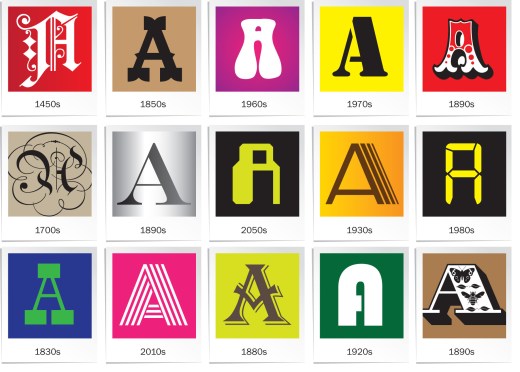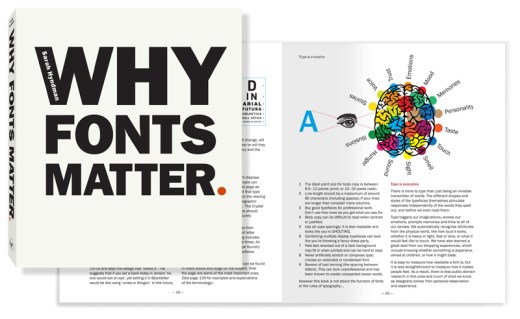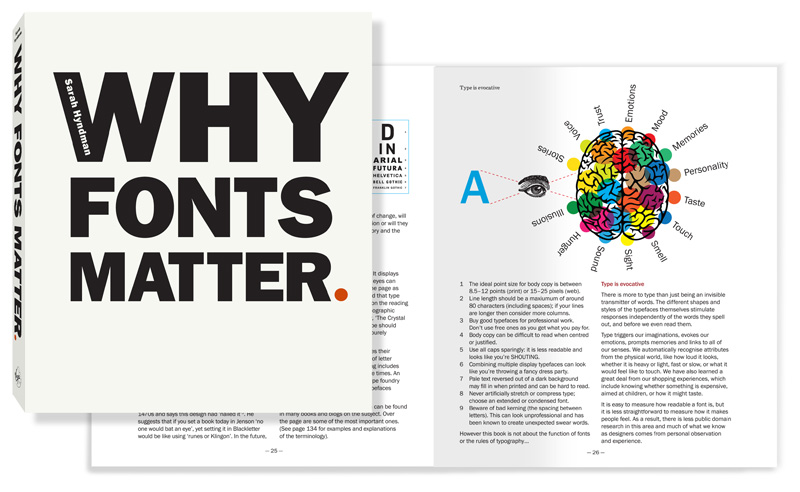
Design student typographic survival kit
Here is some advice for students starting a new term on how fonts can help your studies, from Sarah Hyndman’s book Why Fonts Matter.
1. Use fonts to give your words a personality
Helvetica, Times New Roman and Comic Sans walk into a bar. The barman turns to Comic Sans and says ‘sorry we don’t serve your type in here’.
This familiar joke demonstrates that fonts have personalities that we recognise easily. Some are unassuming, whilst others are larger-than-life like Mike Lacher’s version of Comic Sans, who says, ‘People love me. Why? Because I’m fun. I’m the life of the party’, then goes out and gets drunk with Papyrus.
2. A font could make you appear more intelligent
When student Phil Renaud was nearing the end of his third year at university he noticed that his grade average had improved. He wondered why, since he did not think he was putting any more effort into studying or writing. He realised that the one thing that had changed over time was his choice of font, and so he looked back at the 52 essays he had submitted and compared the grades and typefaces. He found that when he used Georgia his grade average was A, with Times New Roman it was A-minus, whilst the essays written in Trebuchet only averaged B-minus.
3. Change the font to improve your memory
An unfamiliar typeface slows our reading down and makes us pay attention, which takes us off autopilot and our brain invests greater time and attention in what we are reading. A high school in Ohio discovered that when students studied from texts in an unfamiliar font, their exam results were higher than those who had been given the books in a more familiar and readable one. Try switching your notes into a difficult-to-read font when you are trying to memorise them.
4. Use a font to make a difficult task seem easier
Psychologists at the University of Michigan ran an experiment to see if they could motivate a group of 20-year-old college students to exercise by giving them instructions for an exercise routine printed in one of two typefaces. They found that those who read the instructions in Arial, the easy-to-read typeface, estimated the exercise routine would take around half the time to do, and said they would be more likely to incorporate it into their daily routine than those who read the instructions in Mistral, a hard-to-read font. The participants misread the ease of reading the instructions for the ease of actually doing the exercises.
When you are working on a topic you find difficult, try selecting an easy-to-read font while you work, like copywriter Michael Everett who creates his invoices in Century Gothic because this makes the task seem less of a chore.
5. Avoid font faux pas
Select the ‘wrong’ typeface and you can unwittingly commit a font faux pas with the potential to overshadow, or even undermine, the credibility of your message. In 2012 CERN announced the discovery of the Higgs boson, or ‘God’ particle. This was a momentous scientific event but, within hours of the news, “Comic Sans”, the font in which the announcement was made, was trending higher on Twitter than the discovery itself. It became a major talking point that such an important scientific breakthrough should be announced in a style inspired by comic books.